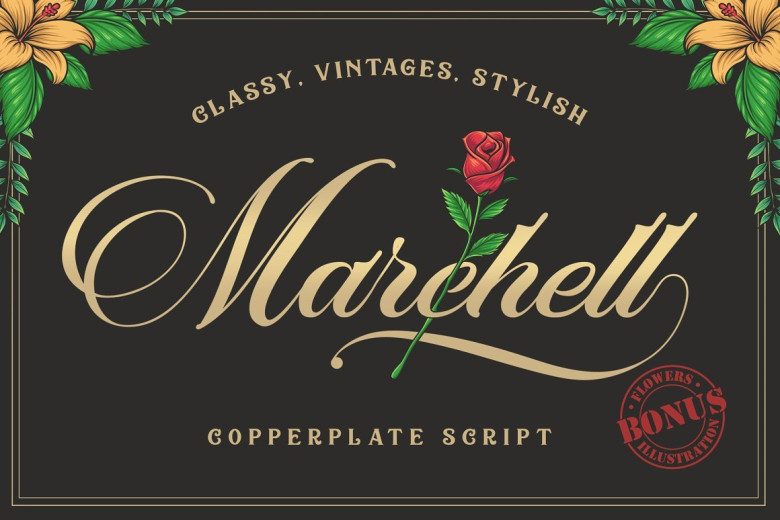
Marchell Script Font
Continue as a new copperplate script. It will make your work more beautiful and interesting. Introducing Marchell. It is was designed and shares by Blankids Studio. This is a copperplate style font that looks classic, vintage and retro but still looks elegant, luxurious and georgeous. Perfect for logos, blog headers, wedding invitations, branding, t-shirts, posters & any projects at all!